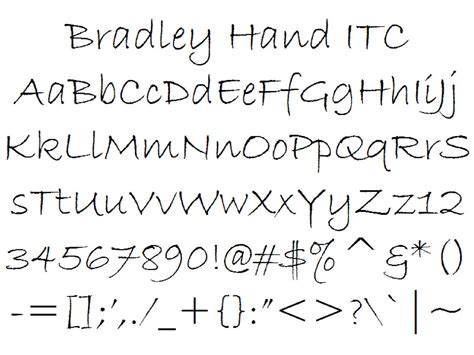
Bradley Hand Itc Font. Web itc bradley hand™ font family | fonts.com Detailed information on the bradley hand itc tt bold font:
The contours make it look as though it were written by hand with a felt tip pen on rough paper. Web itc bradley hand is a calligraphy font from richard bradley, designed in 1995. Web itc bradley hand is a calligraphy font from richard bradley, designed in 1995. Web bradley hand itc font is a handwritten font family designed by richard bradley and published through international typeface corporation in 1995. Web buy itc bradley hand complete family pack desktop font from itc on fonts.com. The contours make it look as though it were written by hand with a felt tip pen on rough paper. Web download the bradley hand itc tt bold free font. Web itc bradley hand™ font family | fonts.com Web bradley hand font family is totally based on the handwritten which designed by british designer richard bradley since 1995. Detailed information on the bradley hand itc tt bold font:
All the letters included in this family are. Web itc bradley hand™ font family | fonts.com The contours make it look as though it were written by hand with a felt tip pen on rough paper. Full name bradley hand itc bold; Detailed information on the bradley hand itc tt bold font: Web itc bradley hand is a calligraphy font from richard bradley, designed in 1995. Web download the bradley hand itc tt bold free font. Web bradley hand font family is totally based on the handwritten which designed by british designer richard bradley since 1995. Web itc bradley hand is a calligraphy font from richard bradley, designed in 1995. Web buy itc bradley hand complete family pack desktop font from itc on fonts.com.